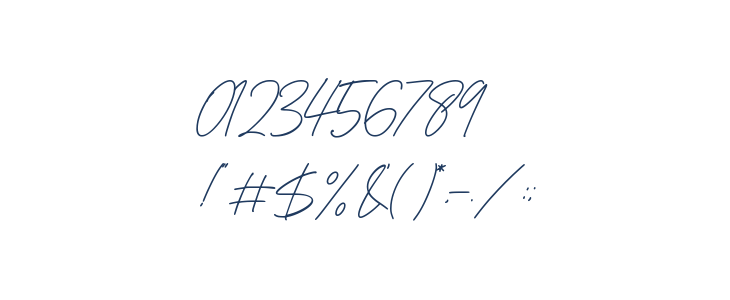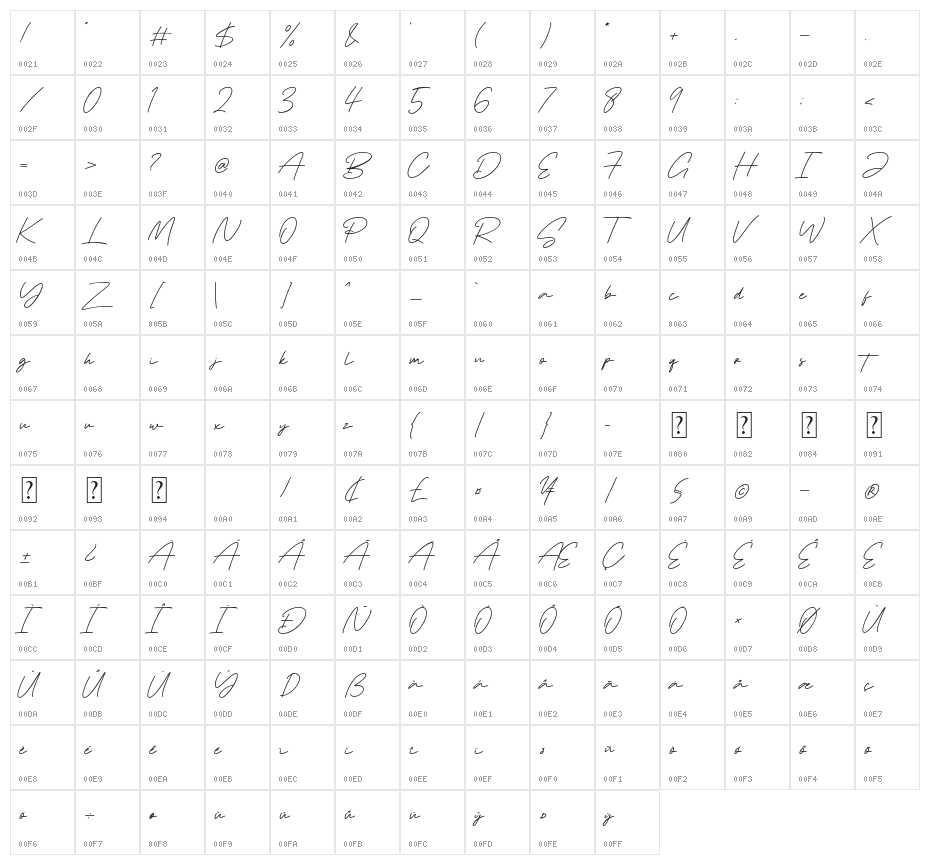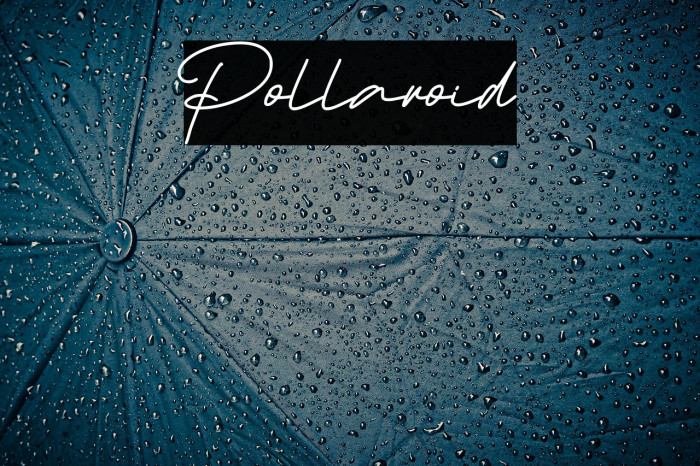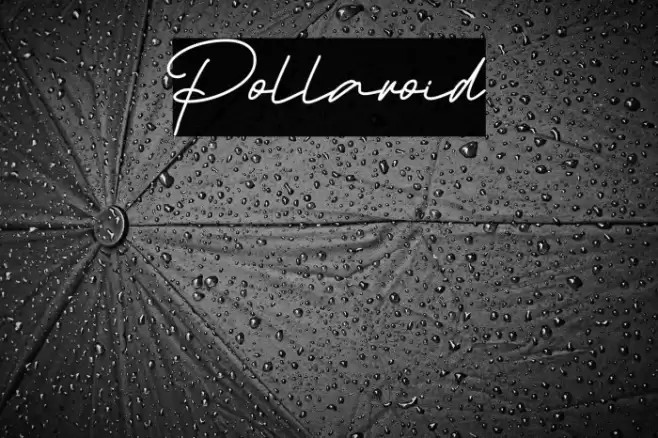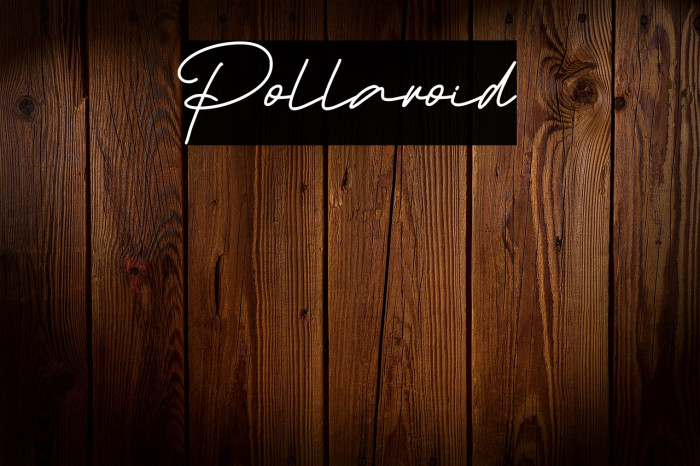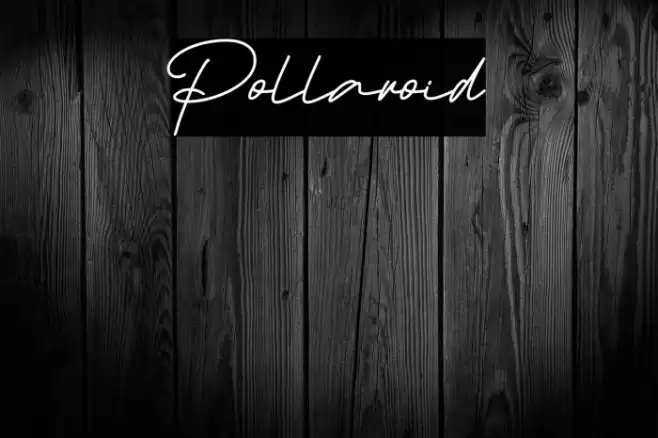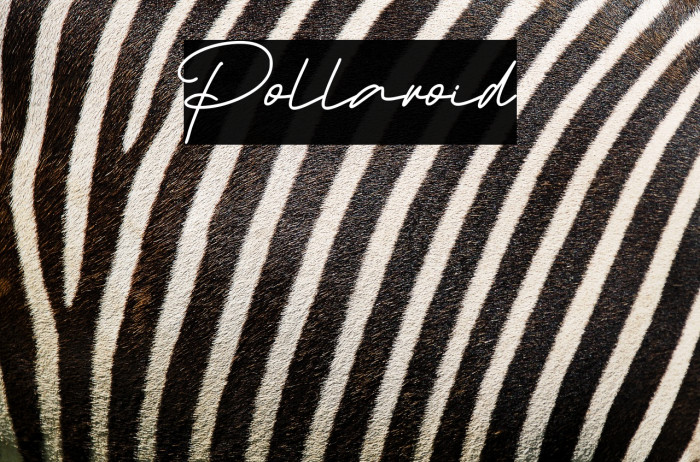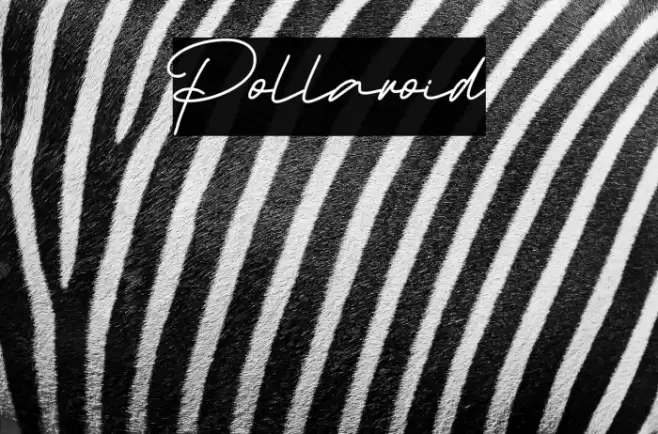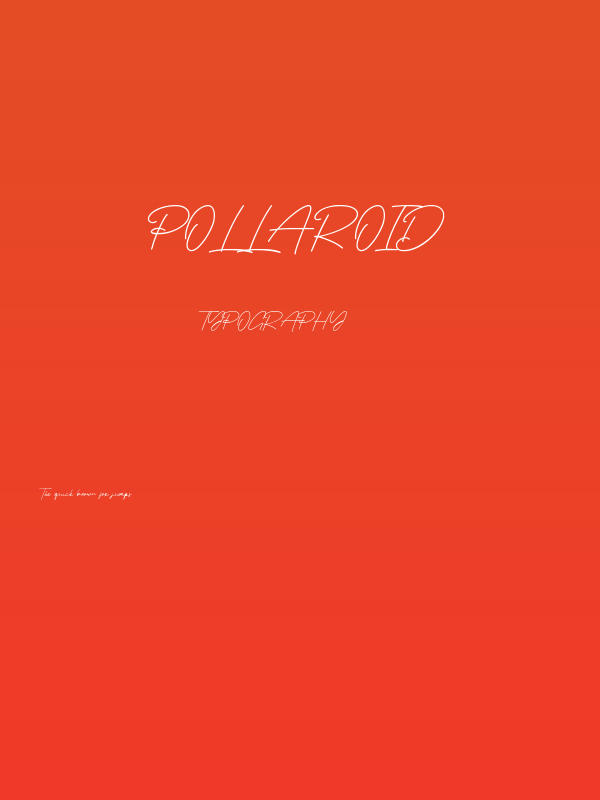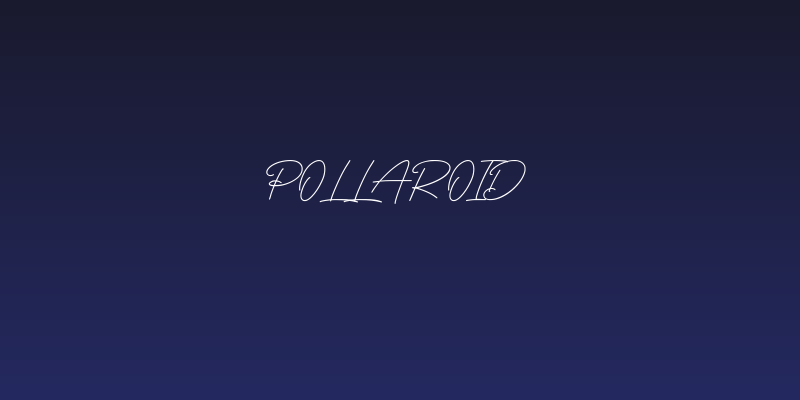
Pollaroid Font
Pollaroid Description
This font exudes a casual yet elegant handwritten style, characterized by its fluid and continuous strokes. The uppercase letters are tall and slightly slanted, giving a sense of movement and dynamism. The lowercase letters maintain a consistent flow, with some letters featuring loops and curves that enhance its handwritten appeal. The numerals are distinct and maintain the same fluidity as the letters, ensuring a cohesive look. Special characters are well-integrated, maintaining the overall aesthetic. This font is perfect for projects that require a personal touch, such as invitations, greeting cards, or branding materials.